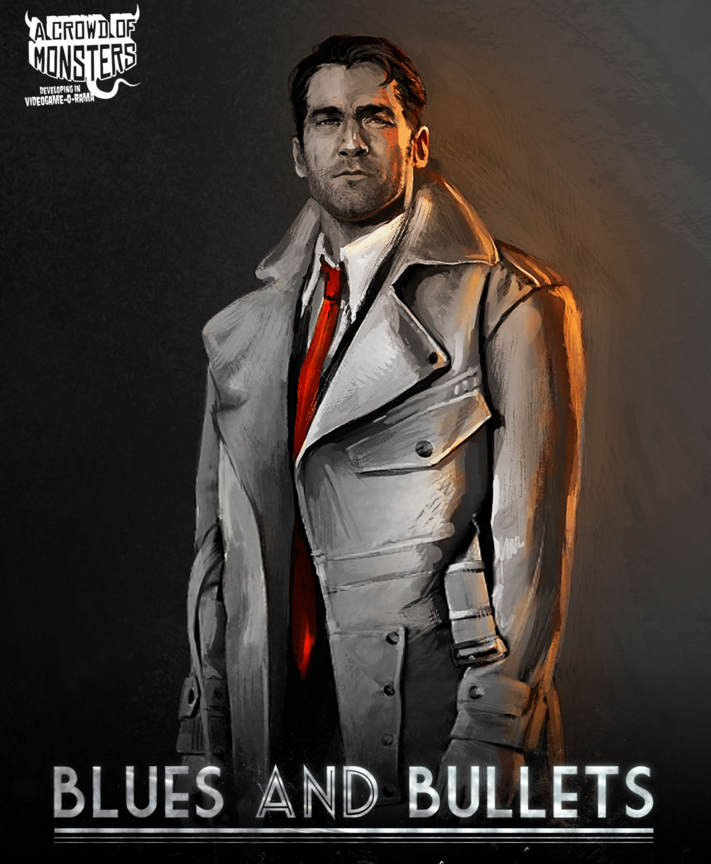
Blues and Bullets Font
ActionBlues and Bullets is a noir-inspired action-adventure game developed by A Crowd of Monsters. In the game, the players control retired detective Eliot Ness as he investigates a series of murders in the city of Santa Esperanza.